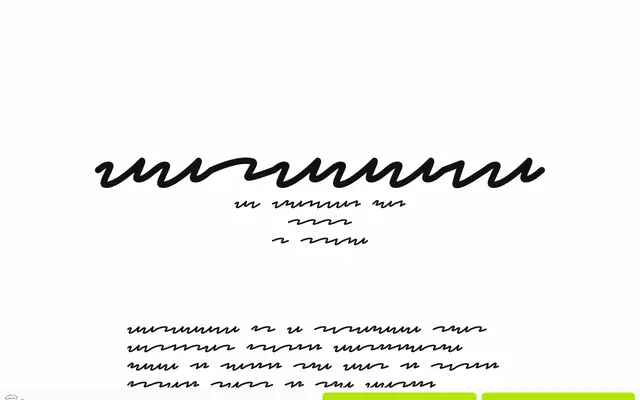
barbecue
A single-style experimental display face by Xiaoyuan Gao that makes caps lock toggling part of the design, causing letters to jump between vertical positions as a typographic gesture.
Designed around what Gao calls 'typing design', the typeface treats the font file as a typewriter and the act of typing as a design decision. Shifting between caps and lowercase causes letters to jump up and down, and an extended hyphen allows users to spell out ---b-a-r-b-e-c-u-e--- style sequences. The glyphset covers Latin Extended with language support across English, German, French, Spanish and a range of other Western European scripts.
A single-style display typeface built around unconventional vertical alignment shifts triggered by toggling caps lock, placing it firmly in the experimental display category rather than any conventional serif or sans tradition.